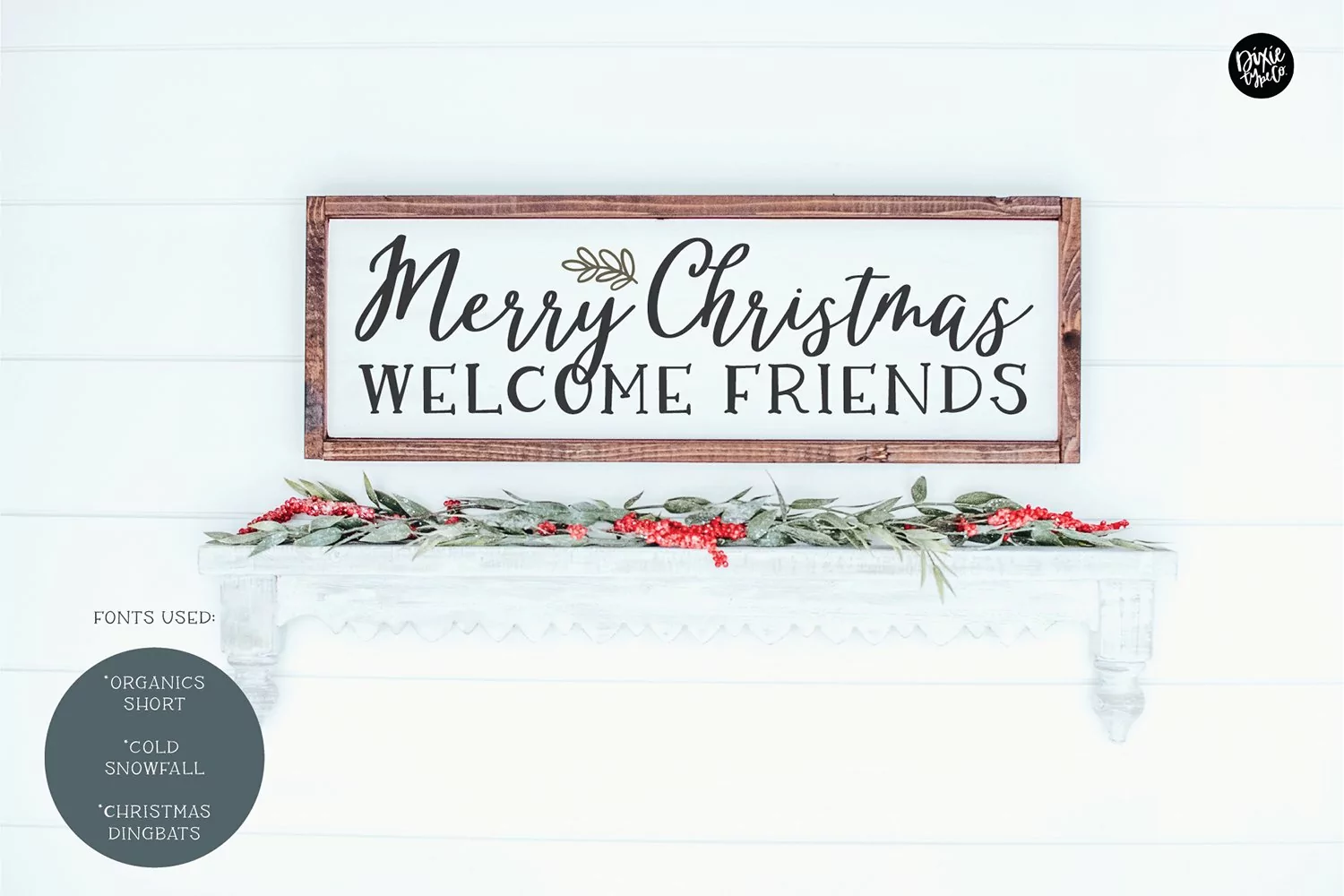
"Cold Snowfall" a farmhouse Christmas script font
{ A typographic font hand-lettered with love by Dixie Type Co. }
Cold Snowfall is a beautiful vintage script font. This font is perfect for your craft projects, christmas decor, farmhouse signs, and more.